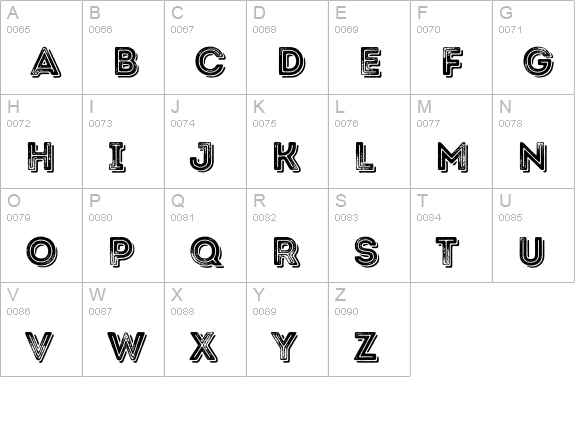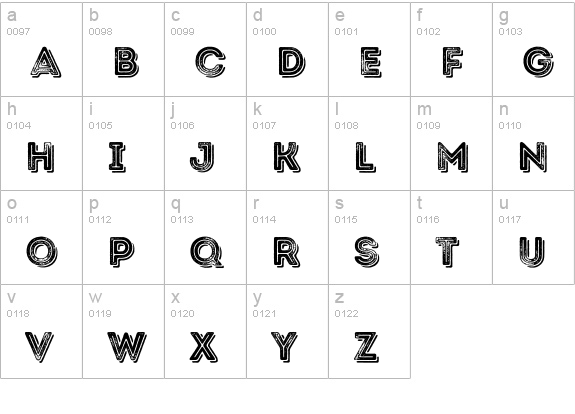
Intro Rust G Base 2 Line Shade Font Details
Intro Rust G Base 2 Line Shade font is a striking display typeface that exudes a perfect blend of modernity and vintage charm. With its intricate two-line shading design, this font commands attention and adds a touch of sophistication to any project it is used in. The bold lines and intricate details of this font make it ideal for creating eye-catching headlines, posters, logos, and more. The best part is that Intro Rust G Base 2 Line Shade font is available for free download at FontsMarket.com. This means that you can easily access this stunning typeface and incorporate it into your designs without any cost. Whether you are a professional designer or a hobbyist looking to add a unique touch to your projects, this font is sure to impress with its bold presence and artistic flair. Download Intro Rust G Base 2 Line Shade font today and elevate your design projects to new heights.